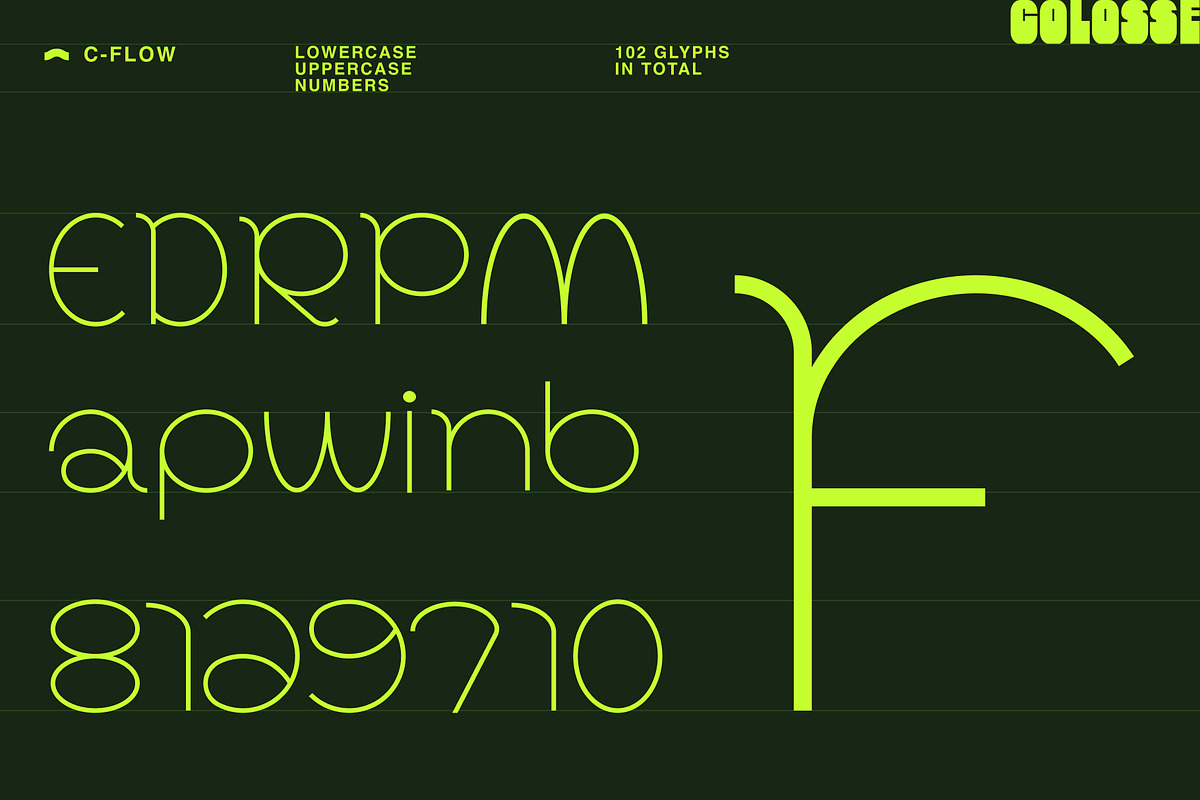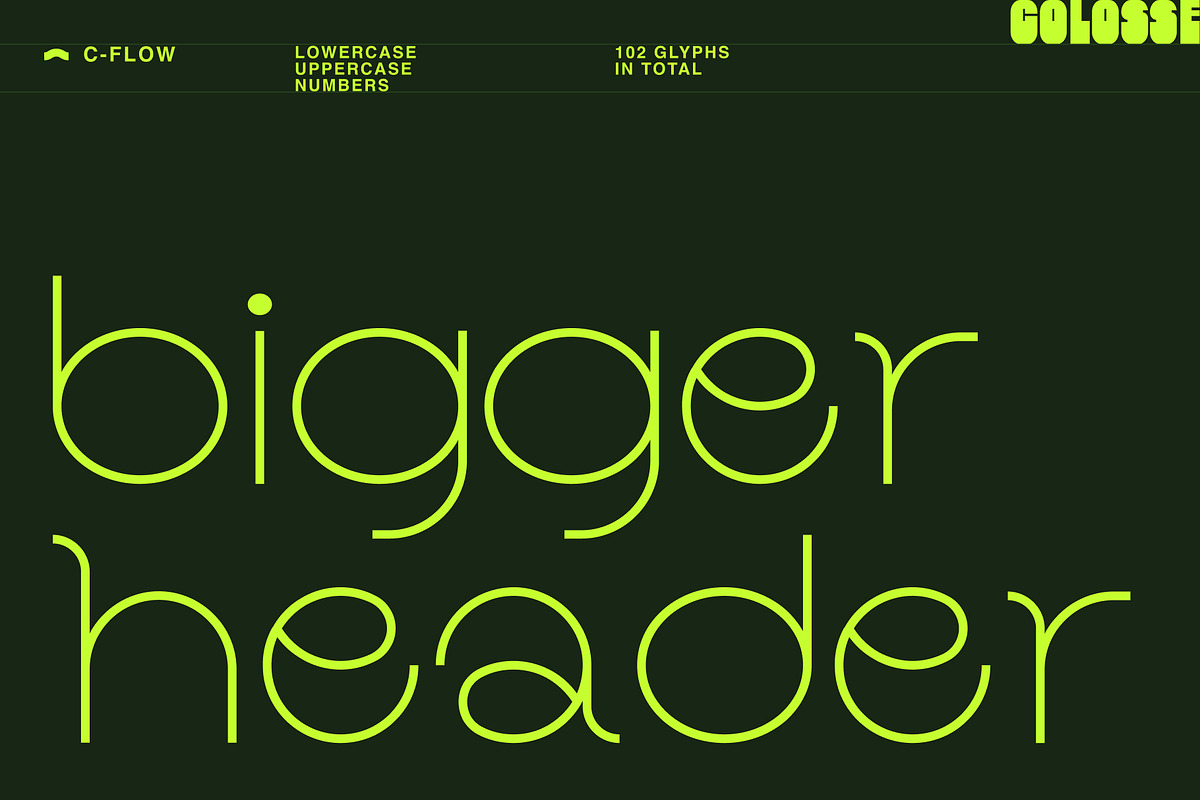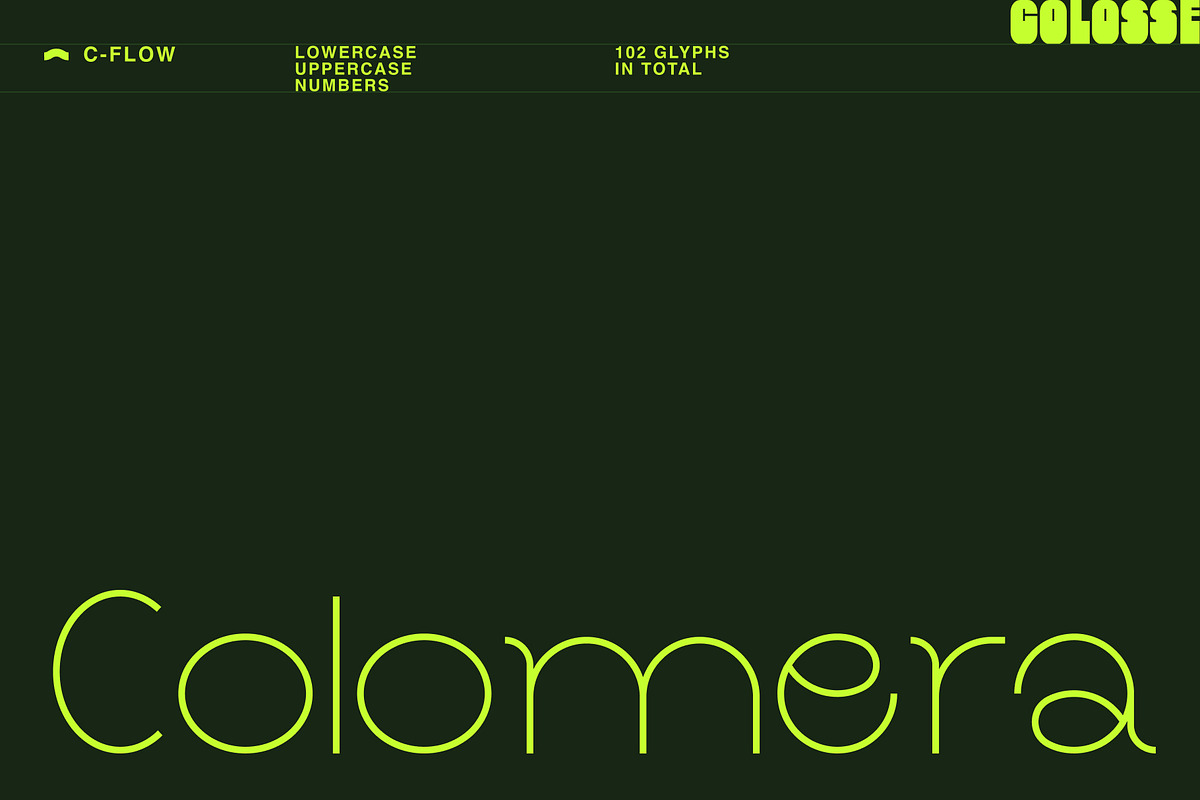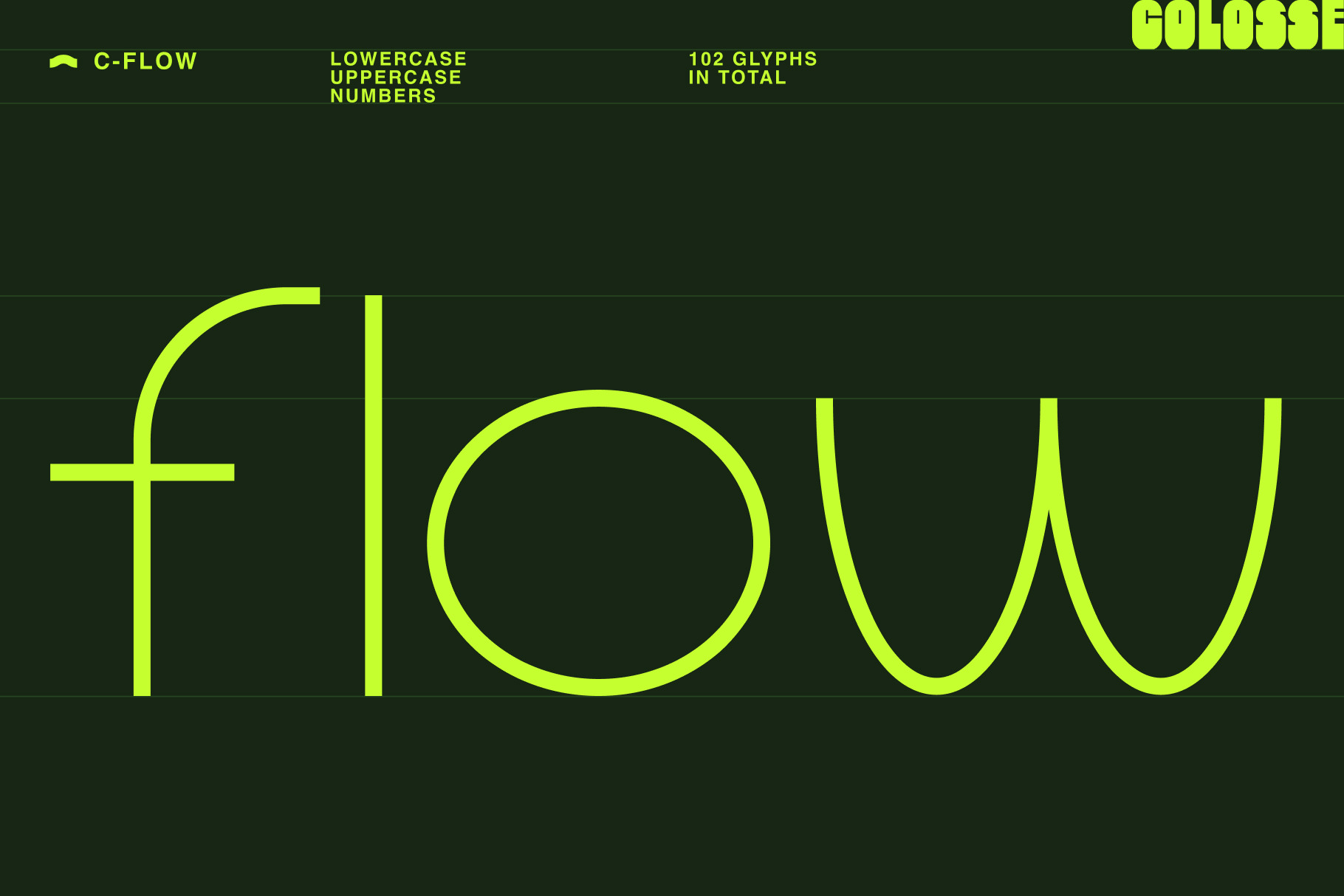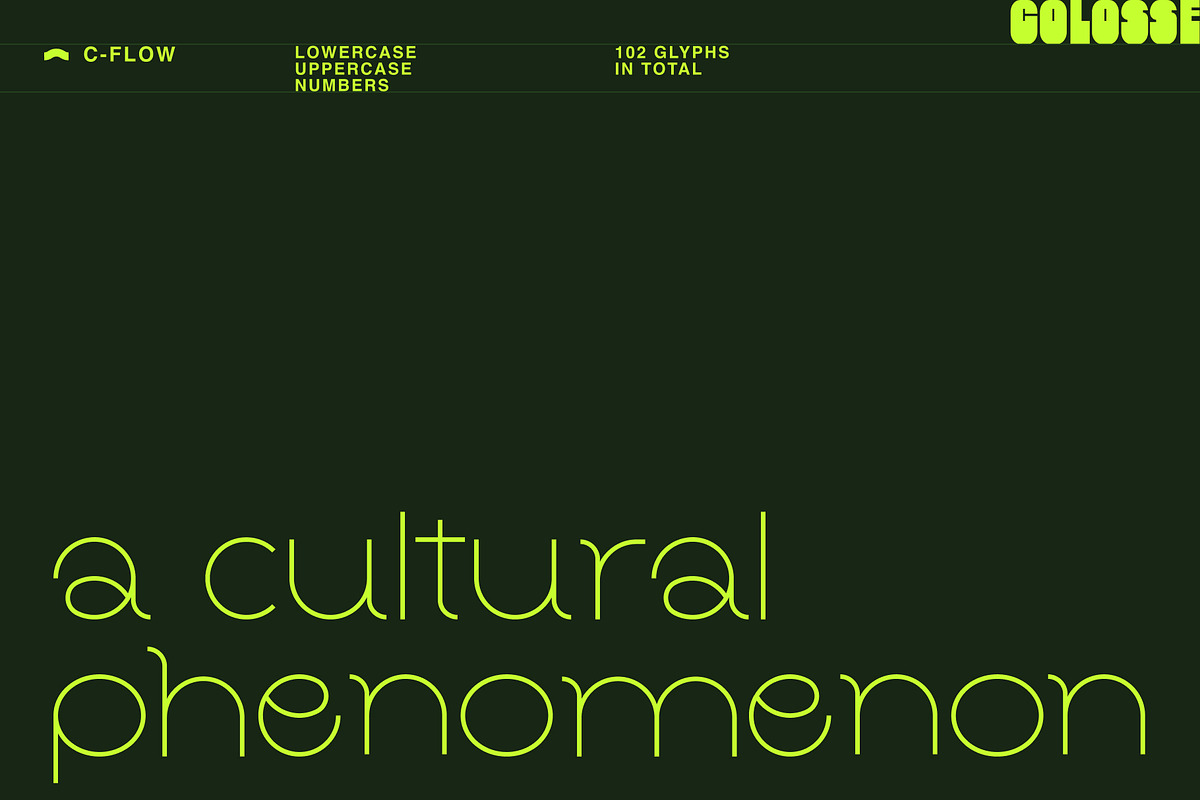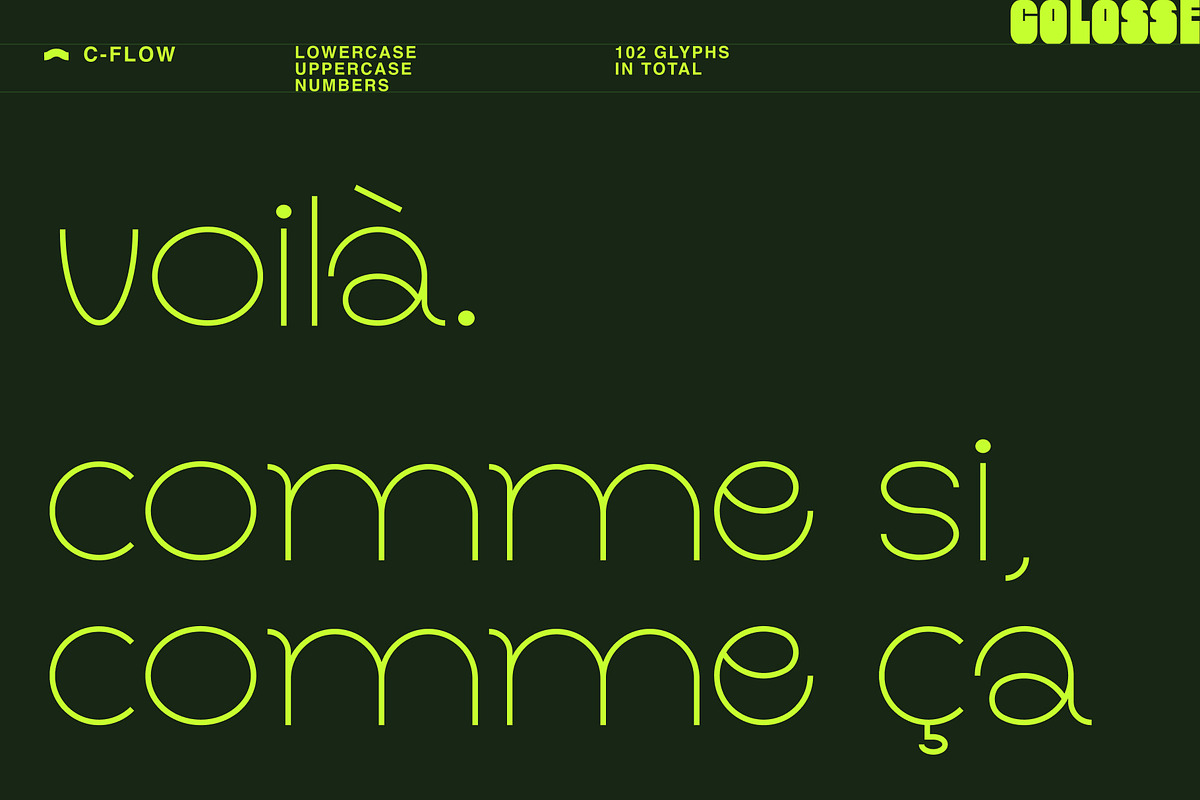
c-flow display typeface
c-flow, is a display sans-serif typeface that takes inspiration from extended fonts and adds a delightful twist. With its bubbly and large letters, c-flow captures attention and exudes a playful charm. This typeface combines the elegance of a sans-serif design with a unique sense of liveliness, making it perfect for projects that require a bold and captivating visual impact.